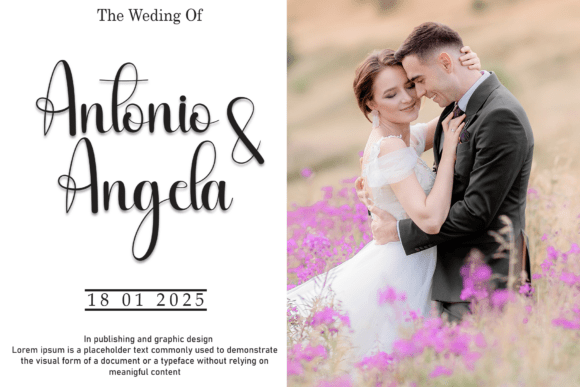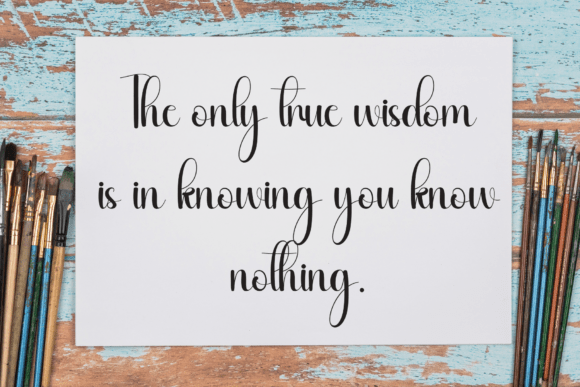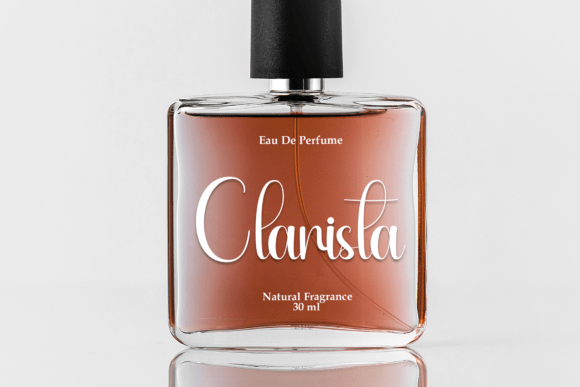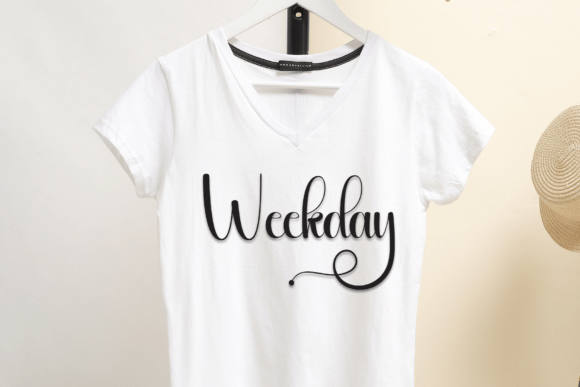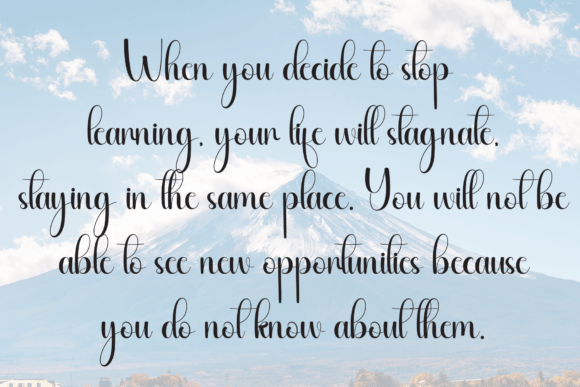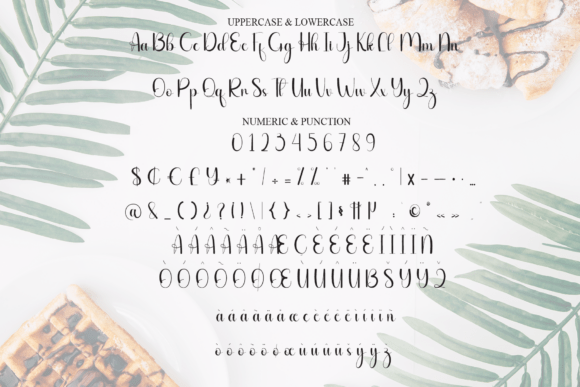
The Elegance of Friday Font: A Designer’s New Best Friend
I’ll never forget the time I was working on a wedding invitation project, and my client asked for a font that exuded elegance and sophistication. I scoured the internet, tried out countless fonts, but nothing seemed quite right. That was until I stumbled upon Friday Font. With its fluid, graceful strokes, it was love at first sight! In this article, I’ll share my experience with Friday Font, its features, and how to make the most of it in your designs.
An Honest Review of Friday Font
- 💫 Elegant and charming: Friday Font adds a personal and sophisticated touch to any design.
- ✅ Smooth curves and natural flow: Creates a timeless, refined look that’s perfect for branding, invitations, and stationery.
- 🎨 Versatile: Works well with a variety of design styles, from modern to vintage.
While Friday Font is an excellent choice, there are a few things to keep in mind:
- 🤔 Limited character set: Friday Font might not have all the characters you need, so be sure to check the glyphs before using it for a project.
- ⚠️ Not suitable for body text: Due to its elegant and cursive nature, Friday Font is best used for headings or titles, rather than large blocks of text.
The Story Behind Friday Font
Friday Font was designed by a team of typographers who wanted to create a font that exuded elegance and sophistication. Inspired by classic calligraphy, they crafted a font that would be perfect for creative projects, such as branding, invitations, and stationery. With its fluid, graceful strokes, Friday Font is sure to add a personal and refined touch to any design.
Q: What is Friday Font best used for?
A: Friday Font is best used for creative projects, such as branding, invitations, and stationery, where a personal and sophisticated touch is desired.
Q: Is Friday Font suitable for body text?
A: No, Friday Font is best used for headings or titles, rather than large blocks of text, due to its elegant and cursive nature.